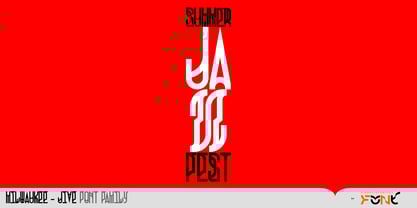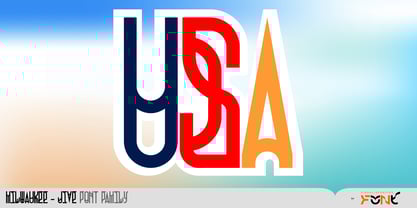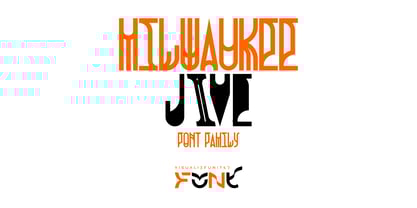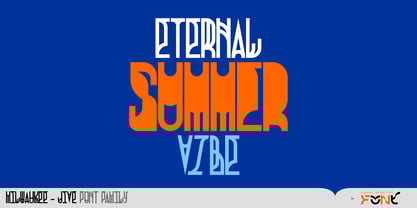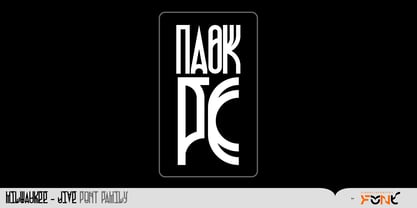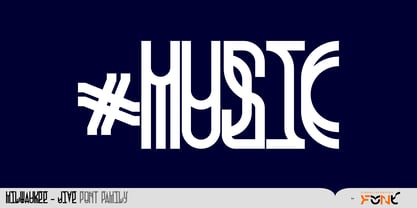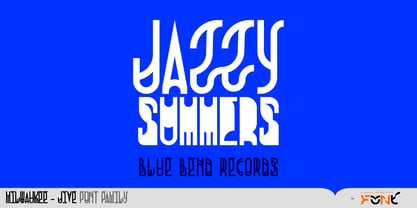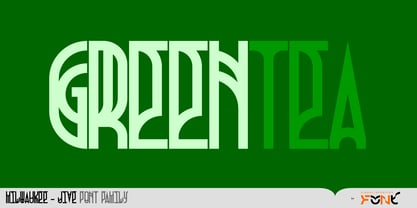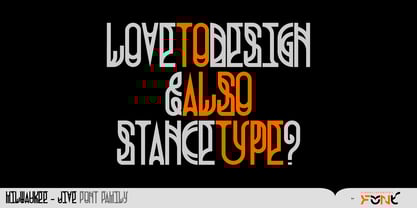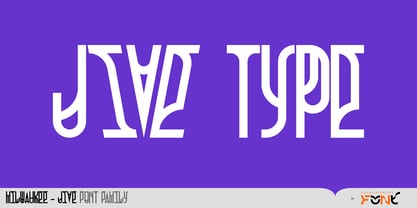
Milwaukee Jive
by VisualizeUnited Fonts
Milwaukee Jive Font Family, is a differential approach to the initial Milwaukee Font Family. Having a “bounce” it is suggested for “All That Music” that one can hear, see, sing, dance to & fee. It consists of uppercase & lowercase Latin & Extended Latin, Greek & Central European characters. It was initially inspired by Byzantine and Japanese typography and later from the cityscape of Milwaukee and its music scene, thus its name. This typeface comes in two styles and is suggested for logos, short titles, social media marketing, book covers, posters, music labels and other applications you will choose to go with. Enjoy Designing!